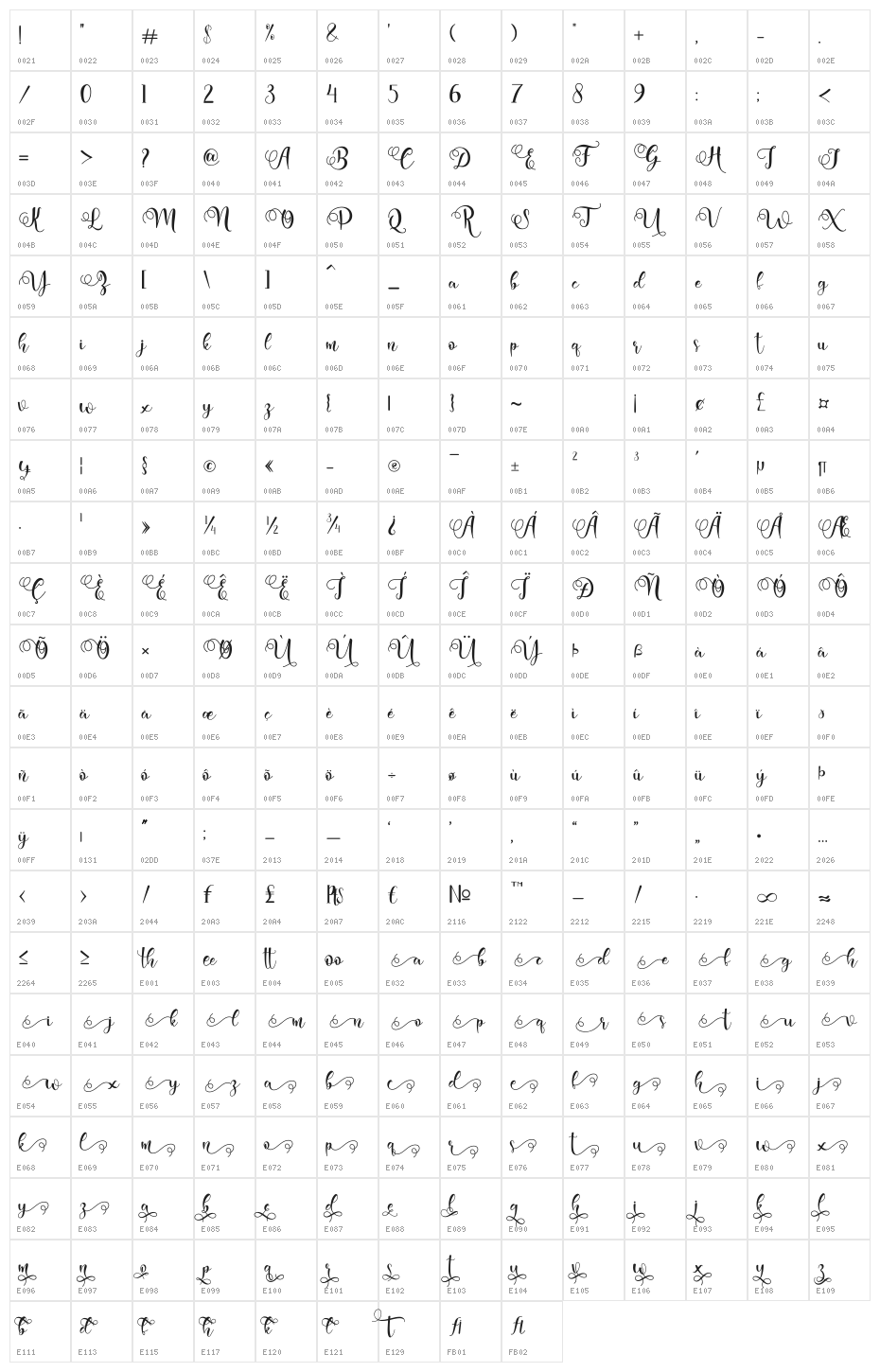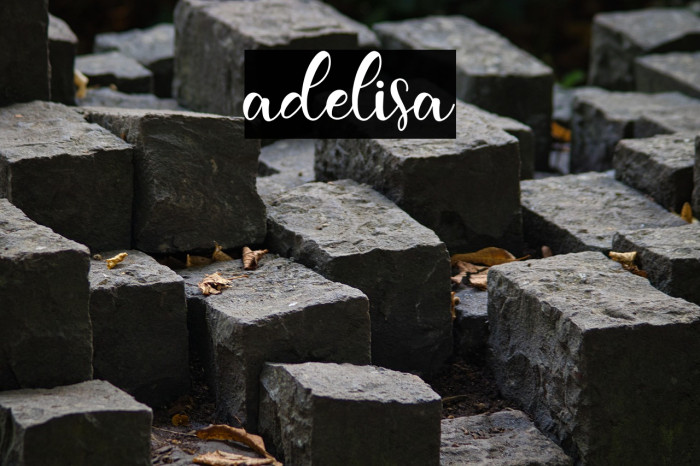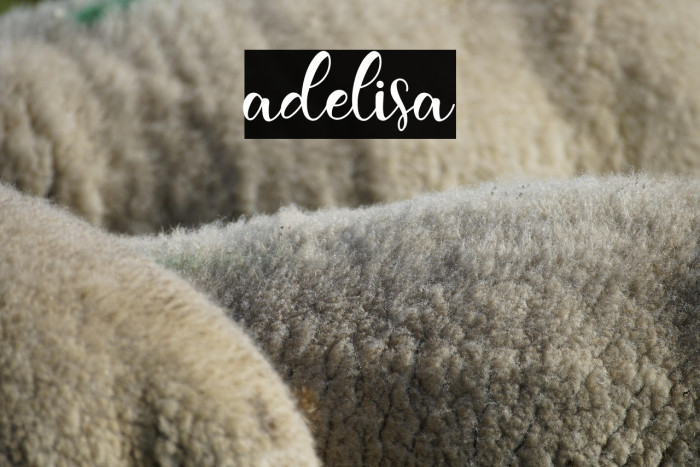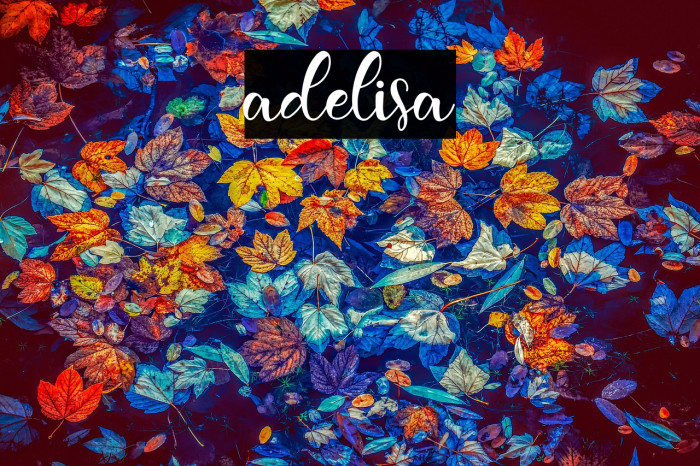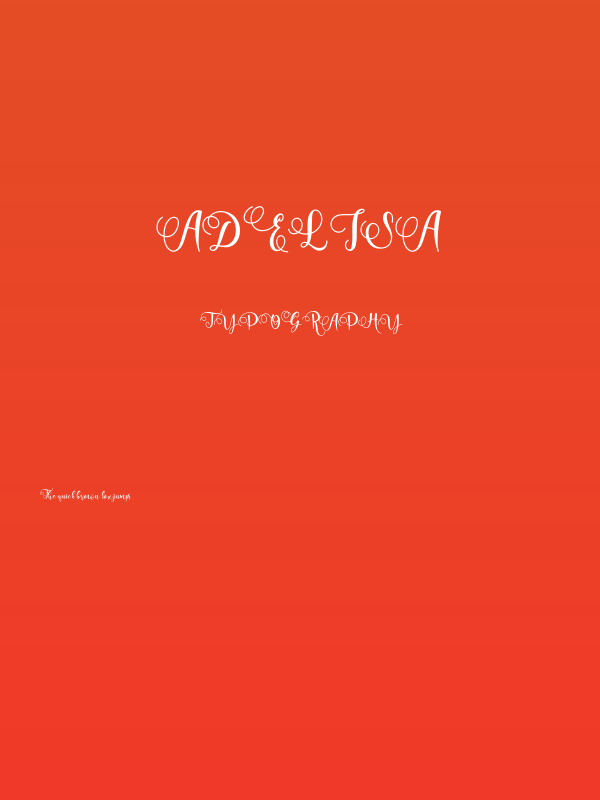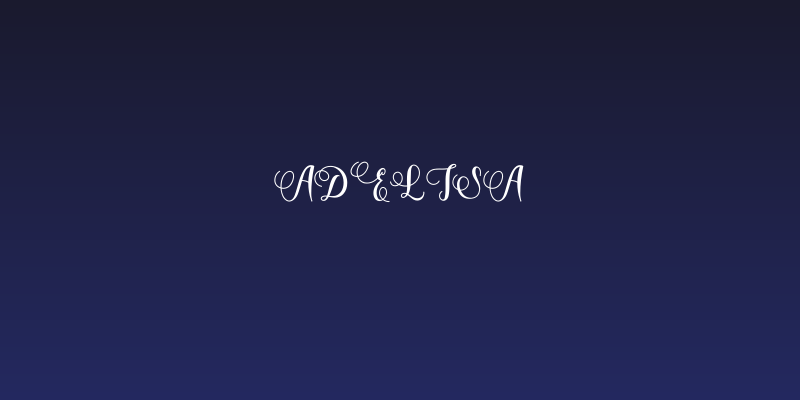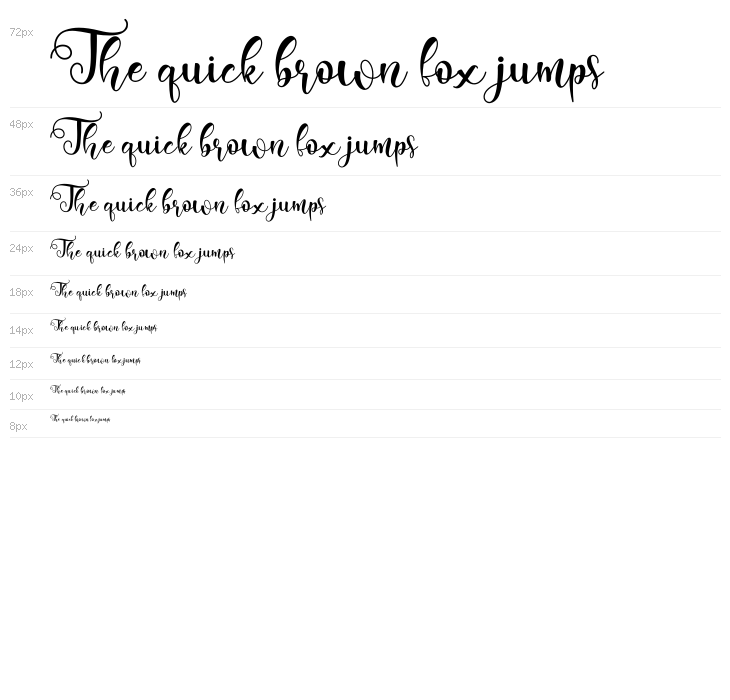
adelisa Font
adelisa Description
This font features an elegant and decorative script style, characterized by its flowing, cursive letterforms with intricate swirls and loops. The uppercase letters are particularly ornate, with each character displaying unique embellishments that add a touch of sophistication and flair. The lowercase letters maintain a consistent cursive style, offering a harmonious blend of readability and artistic expression. The numerals are bold and slightly more straightforward, providing a nice contrast to the elaborate letters. Special characters are designed with the same attention to detail, ensuring a cohesive look across all glyphs. This font is perfect for projects that require a touch of elegance and creativity.
| Use Case | Logos, Invitations, Decorative Text |
| Proposed Projects | Ideal for wedding invitations, greeting cards, branding, and logo design. |